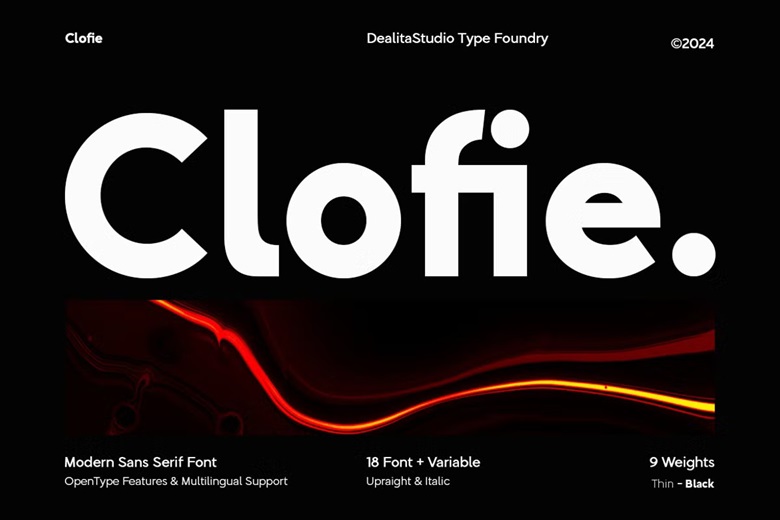
Clofie Font
Clofie is a reduced variable sans serif written typeface that is targeted at designers who cherished accuracy, adaptability, and refined sophistication. Developed in variable font technology, it has a smooth weight control, which is ideal in responsive design, UI/UX systems, and other types of projects that require dynamic branding.
Clofie offers clean, consistent typeface throughout the board regardless of the type of identity you are developing be it a tech company, a wellness brand or an interface on a digital platform.
Clofie Sans Serif Font